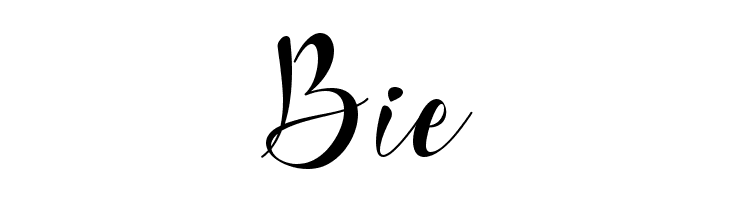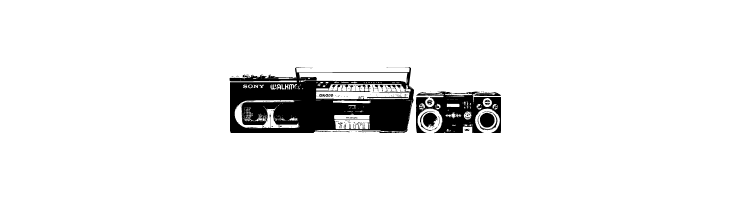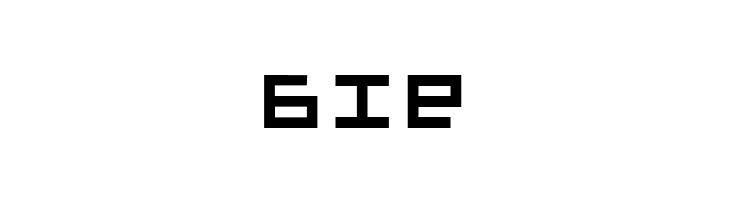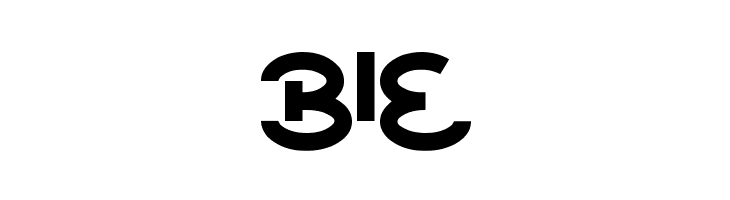
A bold, rhythmic font with a tribal-inspired design and thick, rounded strokes.
A bold, angular font with a futuristic, tech-inspired design.
A bold, playful typeface with irregular shapes and dynamic style.
A display font made from images of retro boomboxes and cassette tapes.
A bold, impactful font with thick strokes and tight spacing.
A bold, playful script font with dynamic curves and a whimsical style.